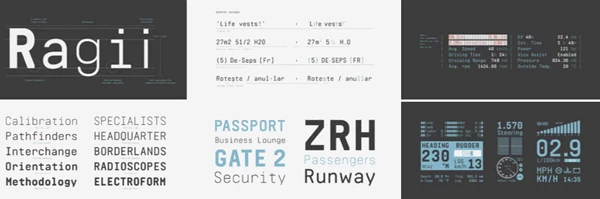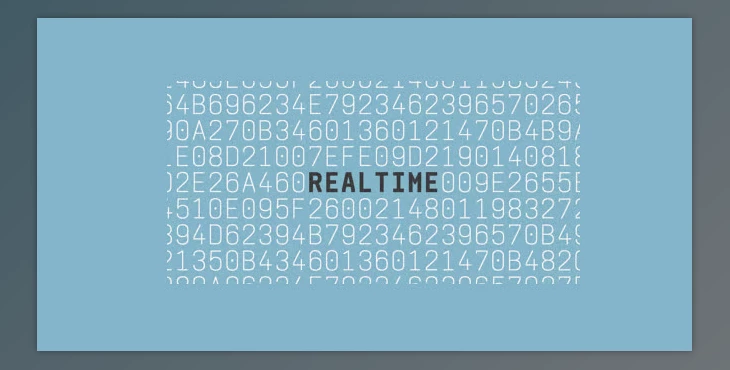
My Fonts - Realtime - Aesthetic Monospace Typeface:
Information displays have their own specific value in terms of style, which means operability and the quick transmission of information. The Realtime typeface is inspired by such applications but does not copy them. It offers a technical aesthetic with a friendly approach, balancing functionality with style. Realtime is monospaced, which makes it ideal for tabular applications, dense columns, and orderly arrangements. Still, it offers the option to set running text with its proportional appeal via OpenType, allowing more freedom in typical monospaced applications.
This typeface comes in 5 weights (light to black) and in a well-drawn character set that includes 200+ Latin languages. Therefore, Realtime works for everything from technical displays to creative accomplishments that require both stylistic and functional means.